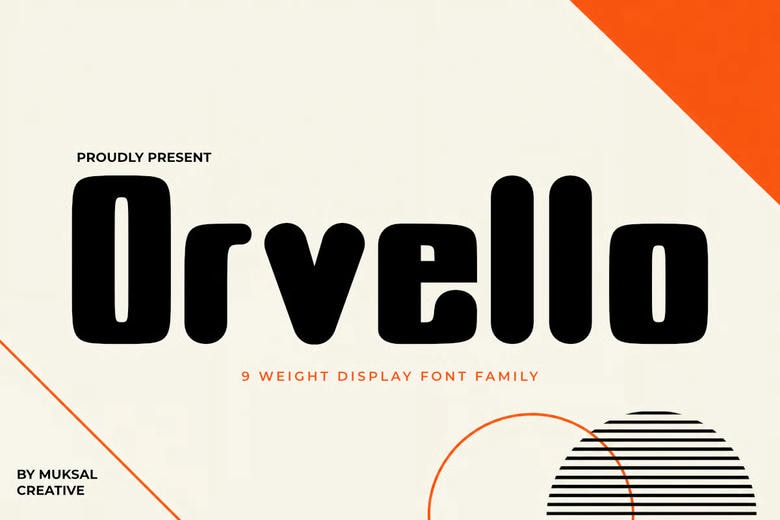
Orvello Font
Orvello is a display font family that adds bold character to your creative work. Its condensed style adapts well across all weights, blending modern, retro, and editorial looks.
With 9 weights from Thin to Black, Orvello gives you the flexibility to design anything from delicate type to bold headlines. Its unique shapes work well for branding, editorials, posters, fashion, packaging, ads, social media, and modern visual identities.
Orvello Sans Serif Font Family